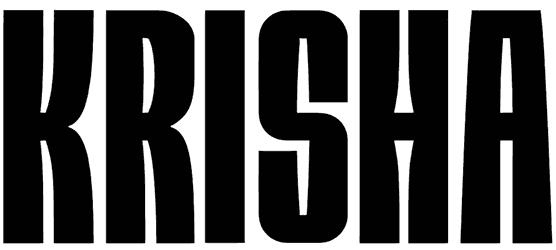
Krisha Font
Krisha is both aesthetically pleasing and looks very prominent in the finished product. This movie font is compatible with any movie genre and helps to determine the personality and identity of your design.
You can even use this sans serif font to design your movie poster or special Halloween decoration and change its nature with some effect. Krisha does not support lowercase letters and is more of a showy yet solid nature.
Hello all, I designed this font to have plenty of vertical visual movement. I hope you enjoy. If you use this font I would love to see how you have used it!